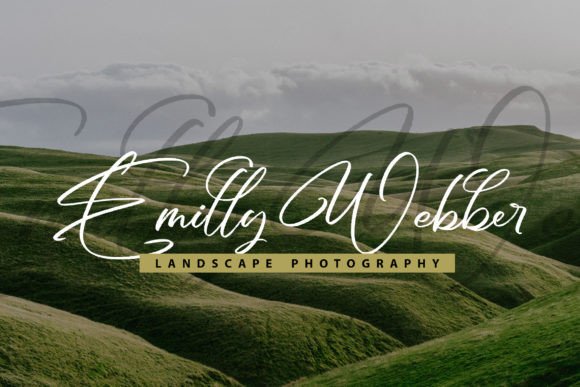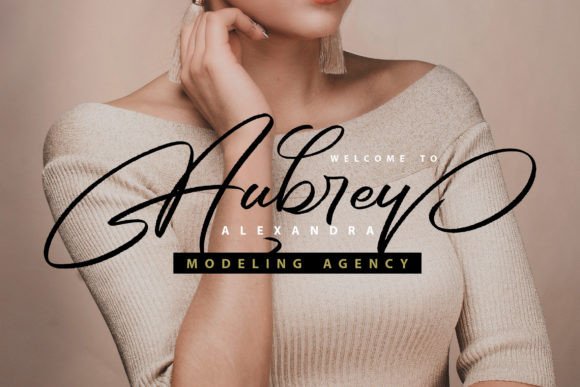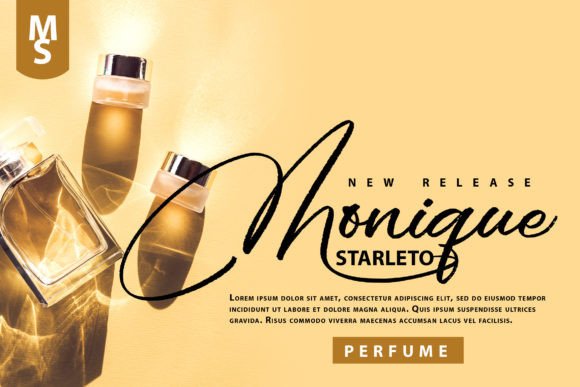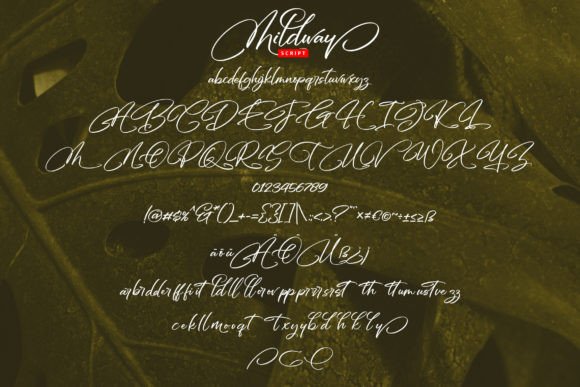
Introduction to Mildway Font
Have you ever stared at a blank page, waiting for the perfect font to spark your creativity? For designers, this moment can be daunting, but what if you had the perfect tool at your fingertips? Enter the Mildway Font, a stunning brush handwritten script font that adds a touch of elegance to any project.
With its high-quality design and transparent background, the Mildway Font is the perfect resource for designers looking to elevate their creative projects. Whether you’re working on a free download or a high-stakes commercial design, this versatile font is sure to impress. Plus, its PUA encoding makes it easy to access all the glyphs and swashes you need to bring your vision to life.
As a valuable addition to any design toolkit, the Mildway Font is a must-have for anyone looking to add a personal touch to their work. In this article, we’ll explore the features and benefits of this amazing font, and show you how to make the most of it in your next creative project.
Key Features of Mildway Font
- Comes in a range of sizes, from 12 to 72 points, to suit different design needs.
- Resolution: 300 DPI, ensuring crisp and clear typography in high-resolution designs.
- Unique characteristics include its modern and minimalist aesthetic, making it ideal for digital and print projects.
Honest Review: Mildway Font
I recently came across the Mildway Font while searching for a free download to use in my creative project. As a designer, I was excited to give it a try and see if it would meet my expectations.
- High-quality font with a unique aesthetic ✨
- Transparent background, making it easy to use on any design background
- Only available in a few weights, which may limit its versatility ⚠️
- No comprehensive documentation or support resources
Overall, I’m impressed with the Mildway Font, but I do wish it had a few more features. As a design resource, it’s a great starting point for many projects, but may not be suitable for more complex or high-end designs.
Despite its limitations, I would still recommend the Mildway Font to fellow designers who are looking for a high-quality, free download. Just be aware of its limitations and consider supplementing it with other fonts to achieve the desired look.
Designing with Mildway Font
Tips for Getting the Most Out of Mildway Font
For the best results, use Mildway Font in conjunction with other high-quality design resources. Experiment with different font sizes and styles to add depth and interest to your design.
Mildway Font is perfect for a variety of creative projects, including branding, marketing materials, and digital products. Its high-quality design and transparent background make it ideal for use in a variety of applications, from logos and business cards to social media graphics and presentations.
Alternatives to Mildway Font
Comparison to Mildway Font: While Mildway Font has a more modern and minimalist design, Great Vibes Font offers a softer and more romantic aesthetic, making it suitable for projects requiring a touch of elegance and sophistication.
The Pacifico Font is a beautiful, script font designed for designers seeking a high-quality, creative resource. It’s available for free download and features a transparent background, making it ideal for use in design projects requiring a subtle and sophisticated look. Pacifico Font is a great alternative to Mildway Font for designers seeking a more elegant and refined aesthetic.
By downloading and incorporating Mildway Font into your design, you’ll unlock a world of creative possibilities. Its versatility and high-quality design make it an excellent choice for any project, from logos and branding to web design and print materials. Don’t miss out on the opportunity to elevate your design with Mildway Font – download it today and discover a new level of creativity and precision in your work.